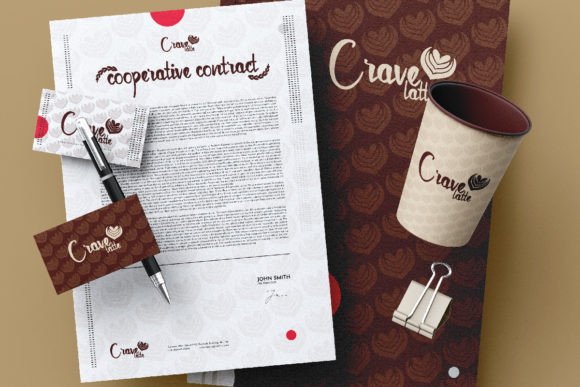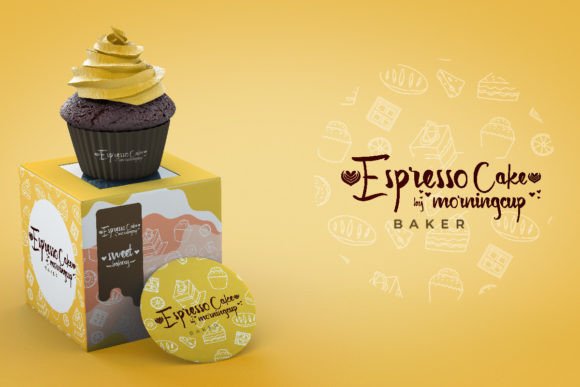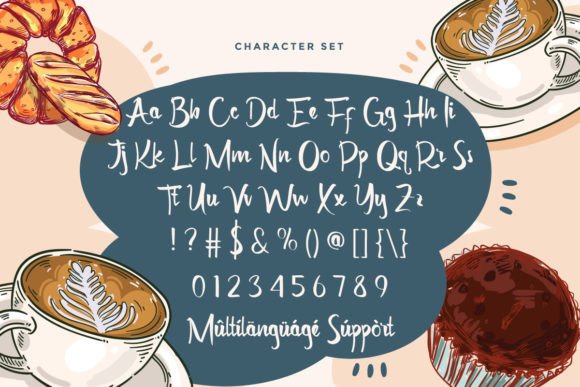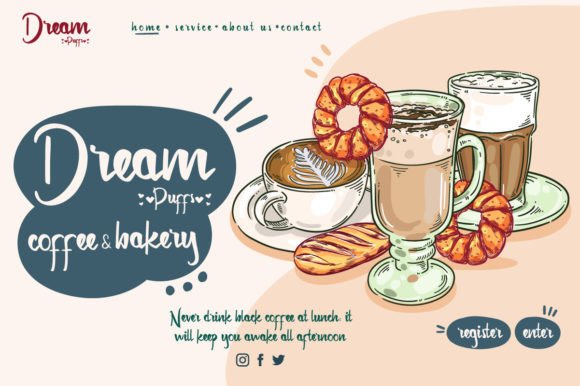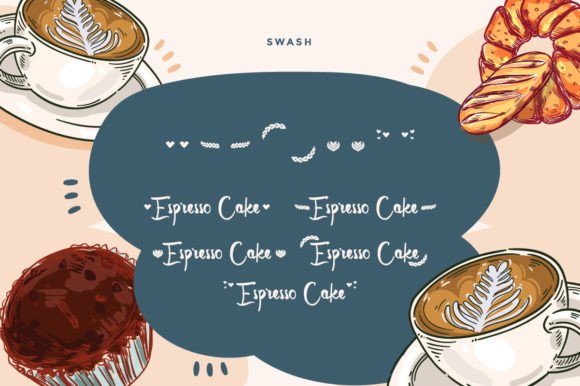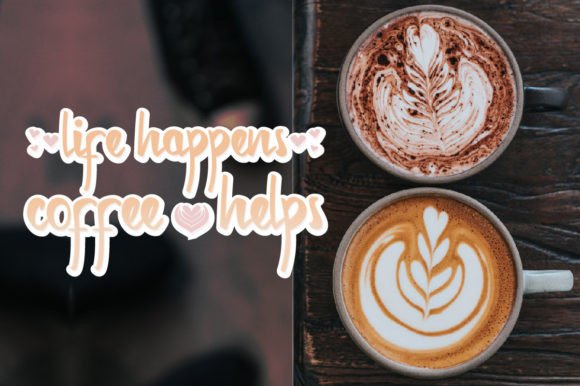
The Sweet Delight of Espresso Cake Font
Have you ever been in the middle of a design project, and suddenly, you’re stuck on finding the perfect font? I recall a recent experience where I was working on a whimsical branding project for a bakery, and I just couldn’t find a font that captured the playful, yet elegant vibe I was going for. That’s when I stumbled upon the Espresso Cake font, and it was love at first sight! 😍
A Delightful and Endearing Handwritten Font
Espresso Cake is a delightful and endearing handwritten font that exudes a cute and casual vibe. Its bubbly characters and slightly uneven lines give it a handcrafted and playful appearance, perfect for conveying a fun and lighthearted tone. The letters are slightly slanted, as if written with a quirkiness, yet remain easy to read.
Honest Review
- ✅ The playful and whimsical vibe it brings to any design project
- ✅ The bubbly characters and slightly uneven lines that give it a handcrafted feel
- ✅ The ease of readability, despite its quirky and slanted letters
- ✅ The versatility of using it for various design projects, from invitations to branding
While Espresso Cake is an amazing font, there are a few things to keep in mind:
- 🤔 It may not be suitable for formal or professional designs, as it has a distinctly playful tone
- 🤔 Some letters may appear a bit cramped or overlapping, especially at smaller font sizes
| Feature | Description |
| Ligatures | Replace standard character combinations with stylistic ligatures |
| Stylistic Alternates | Access alternate characters for a more customized look |
| Glyphs | Explore additional characters, such as ornaments or swashes |
Espresso Cake was designed with the intention of capturing the whimsical and playful spirit of a bakery. The designer, inspired by the world of sweet treats, aimed to create a font that would bring a smile to anyone’s face. With its bubbly characters and quirky lines, Espresso Cake is the perfect reflection of that inspiration.
Q: What is the best use for Espresso Cake font?
A: Espresso Cake is perfect for designs that require a playful and whimsical tone, such as invitations, branding, and social media graphics.
Q: Is Espresso Cake suitable for formal designs?
A: No, Espresso Cake has a distinctly playful tone and may not be suitable for formal or professional designs.